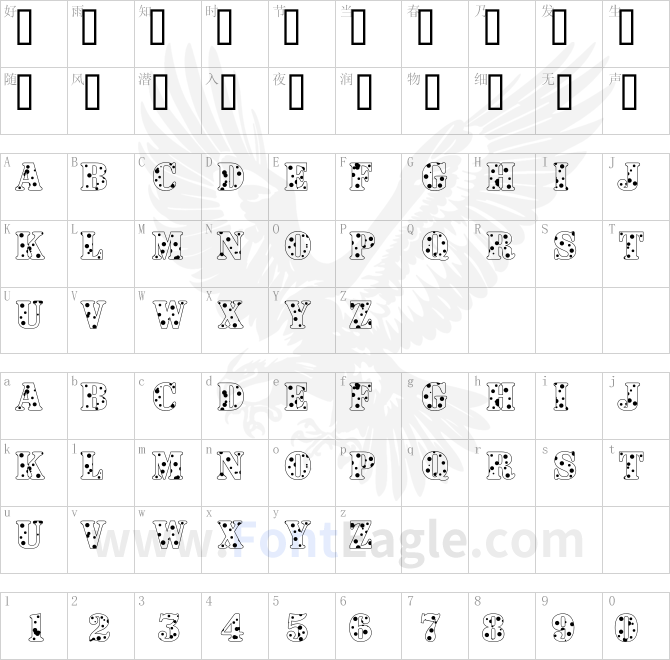
- Font name:a_SignboardTitulDrp
- Font Subfamily ID:Macromedia Fontographer 4.1 a_SignboardTitulDrp
- Font Full Name:a_SignboardTitulDrp
- Font Version:Macromedia Fontographer 4.1 22.11.97
- Postscript:ASignboardTitulDrp